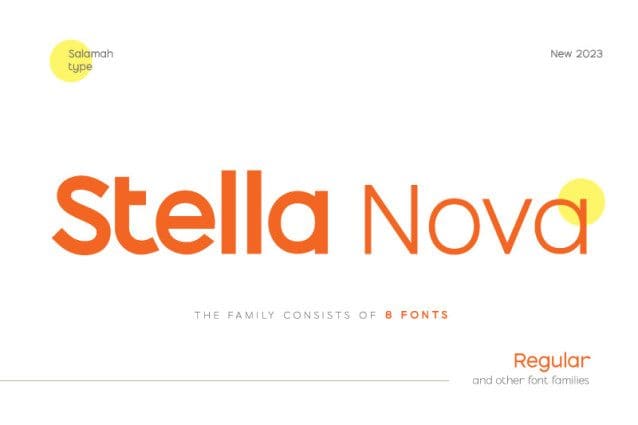
Stella Nova – Family Font
Stella Nova Font is an essential and elegant sans serif font. The font family consists of 8 fonts. Perfect for magazines, posters, logos, branding, websites, etc.